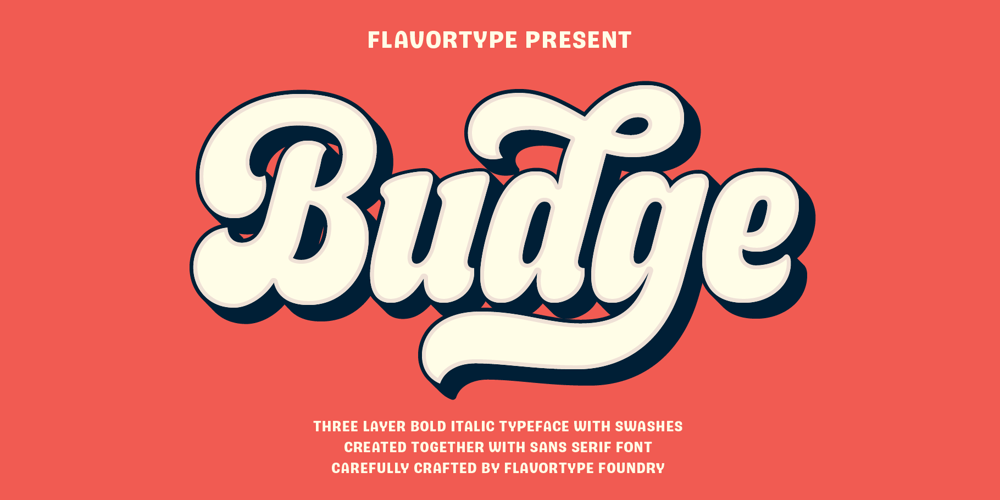
Budge Font Family was designed by Ilham Herry, Adam Fathoni Haris and published by Flavortype. Budge contains 4 styles and family package options. Budge, a new carefully crafted layered Italic Typeface. The ideas of this fonts come from a wide range of reference and deserts and beverages are our main focus for this font family. Budge will give a versatile, fun, cute and beauty feel to your projects.Budge was created with beautiful swashes, and also comes with 3 Layer : Regular, Shadow and line. Perfectly fitted layers to give you more contrast, and a bolder look. Every glyphs for alternates is curated for the best and without eliminating the characteristic of this fonts. Budge also comes with a Sans Serif as Font Pair that completes the needs for your design.Our creation on the display give you a reference of what it looks like on your projects such as branding, headers, logotypes, posters, magazines, packaging, food menus, and more. It shows that Budge clearly can accommodate various design style.Type Specimen here : http://tiny.cc/y9mfnz